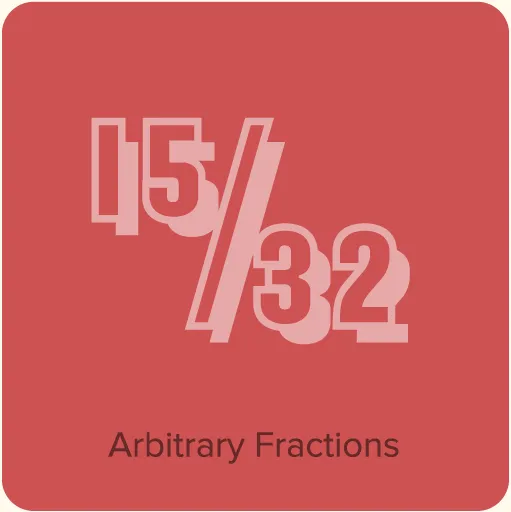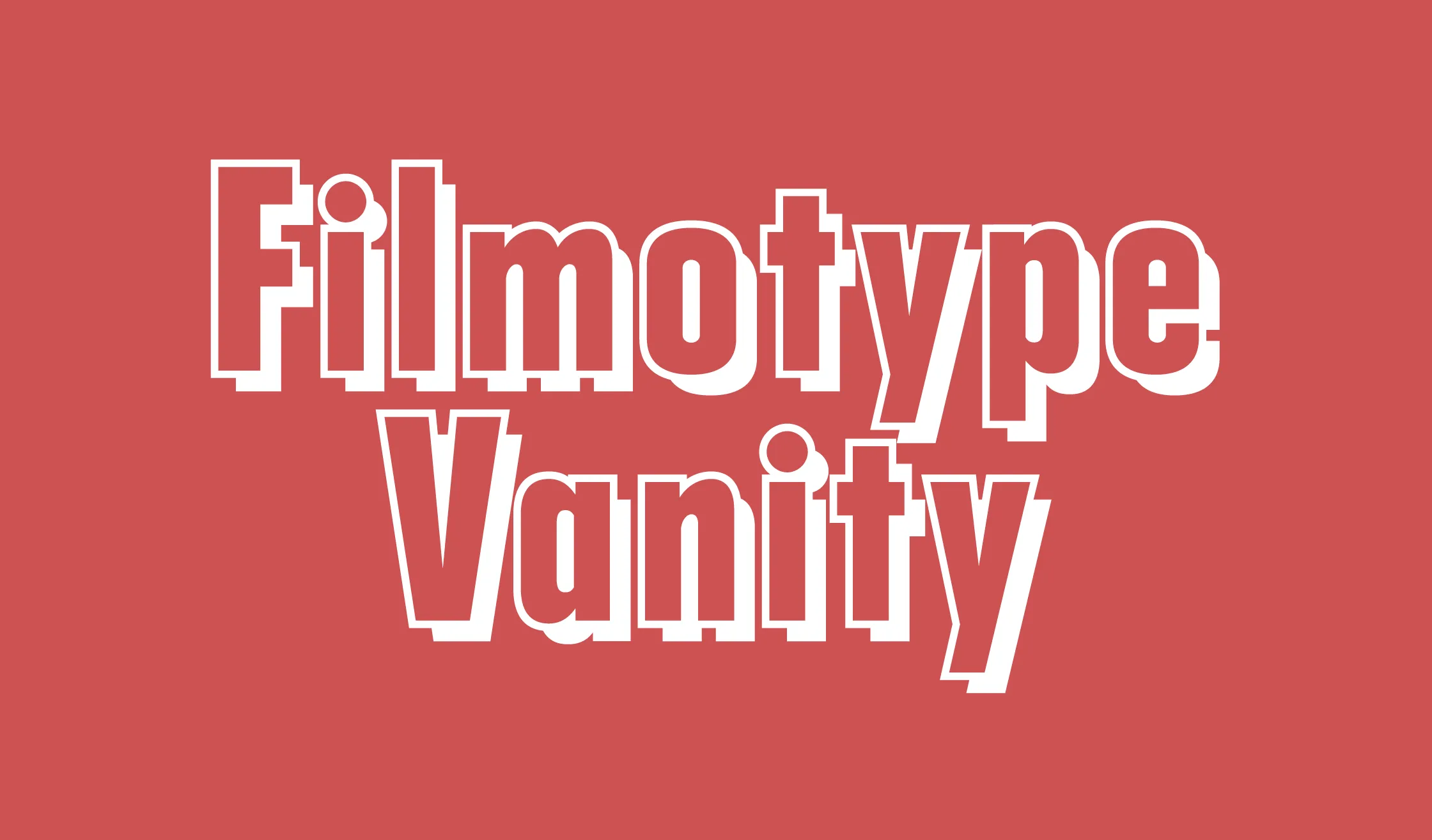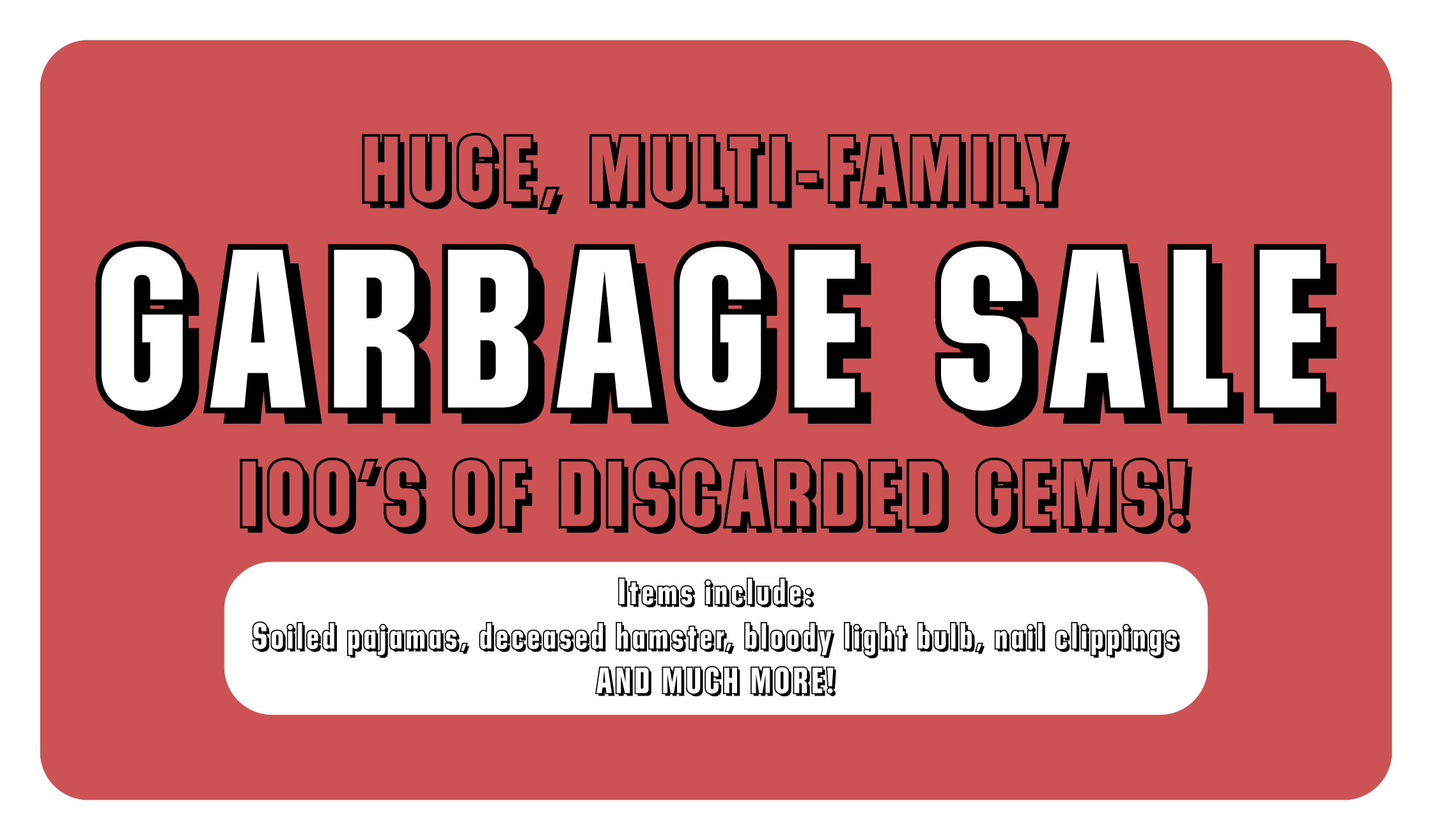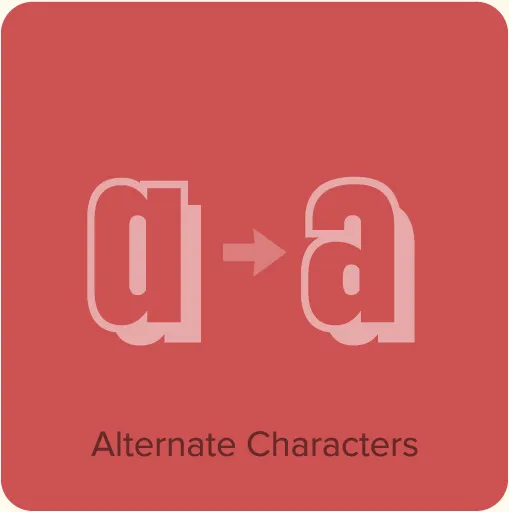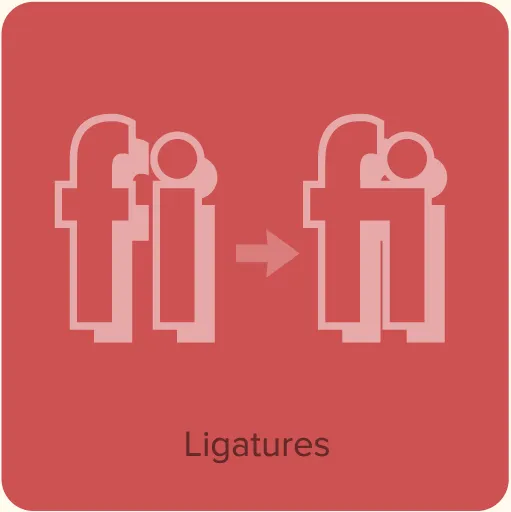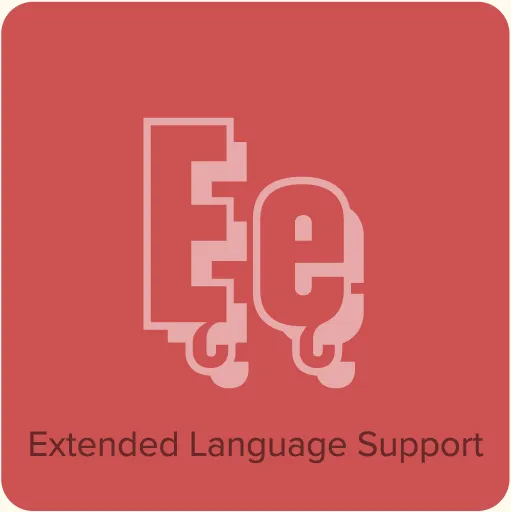
Filmotype Vanity (2008, for Filmotype) was originally designed and released in the 1950s. It is the outline/shadow companion to Filmotype Ginger. You might expect that it would have a name like “Ginger Shadow”, but Filmotype had its own peculiar way of naming fonts. Fonts that had outline or shadow effects all had names that started with the letter “V”, hence Vanity. Pro tip: If you track Filmotype Ginger to 20 units, and place it on a lower layer in your graphics app, it can be used as a fill for Filmotype Vanity.